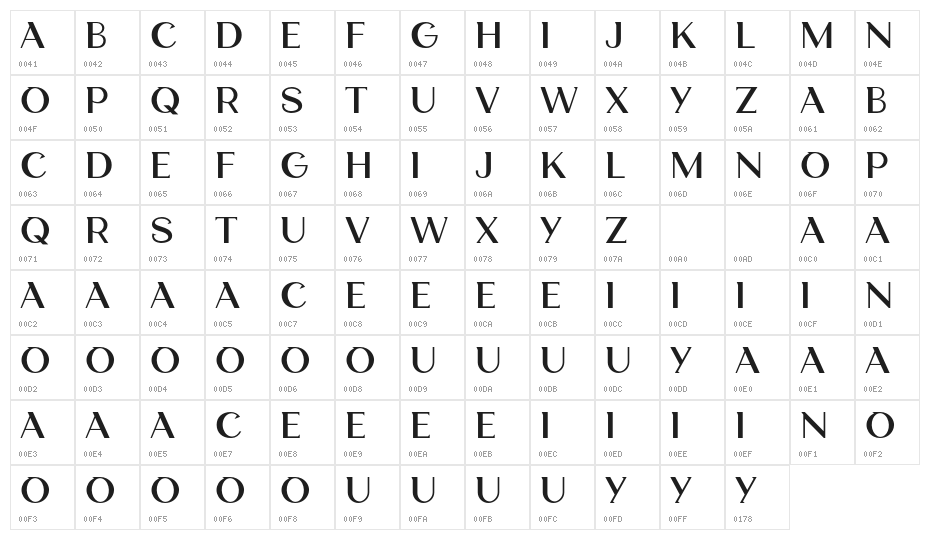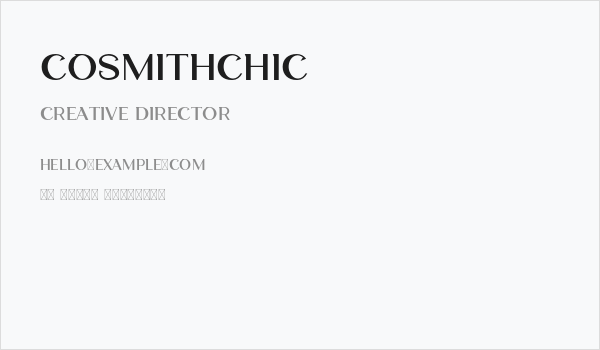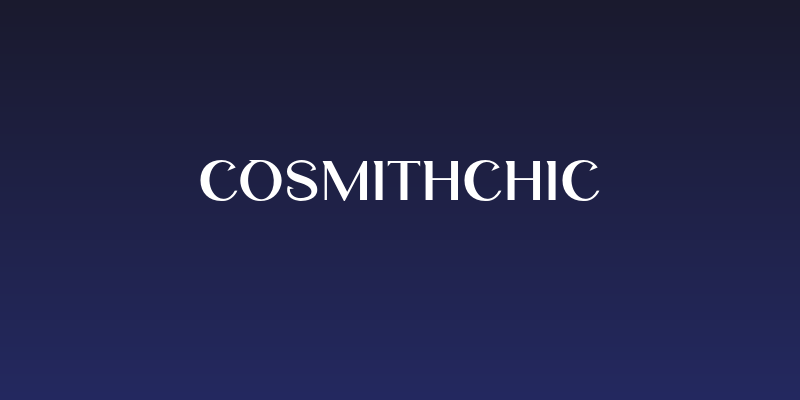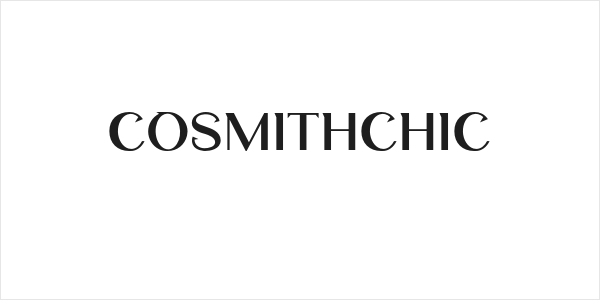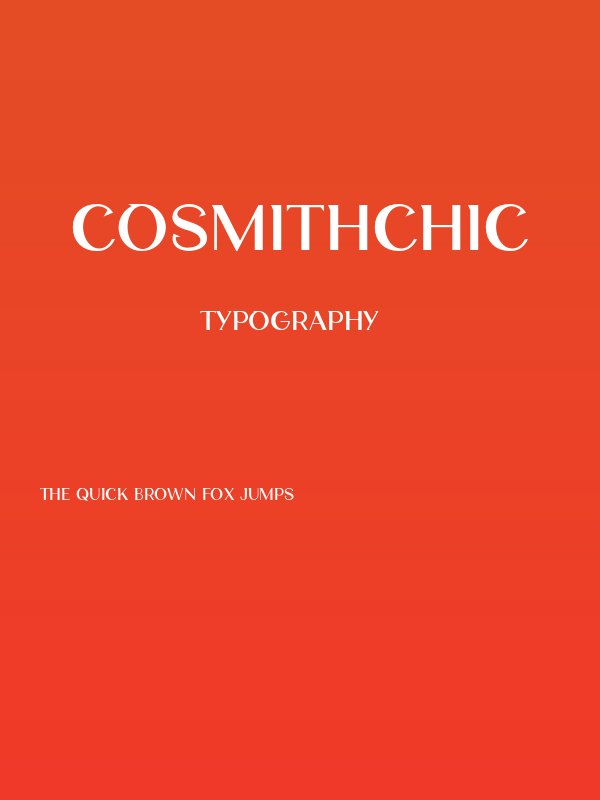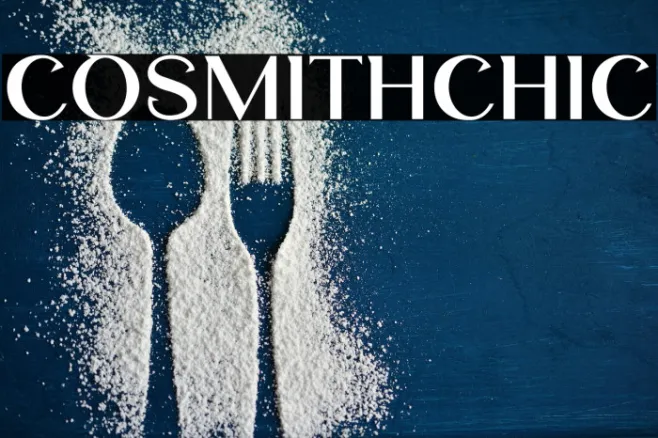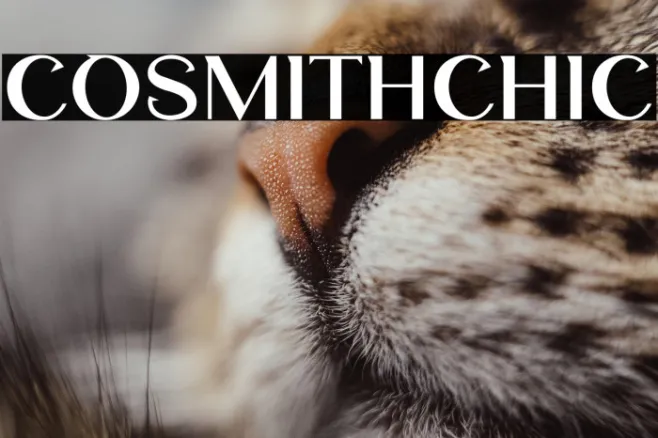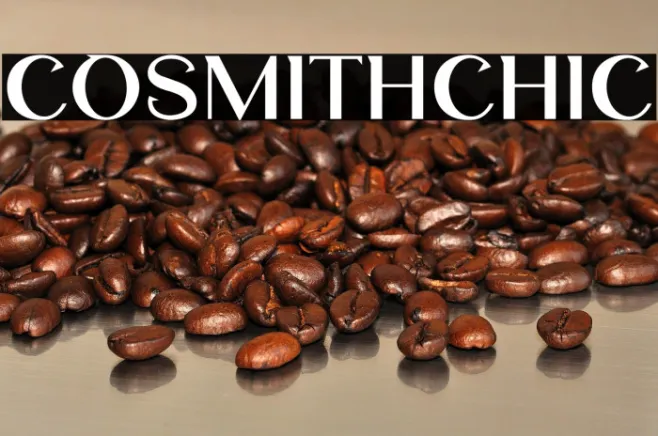
CosmithChic Font
CosmithChic Description
This font features a modern and elegant serif style with distinct, sharp edges and a sophisticated appearance. The uppercase letters are bold and commanding, while the lowercase letters maintain a refined and balanced look. The font's design is characterized by its high contrast between thick and thin strokes, giving it a dynamic and stylish feel. The overall structure is clean and precise, making it suitable for a variety of design applications. The spacing between characters is normal, ensuring readability and clarity in both large and small sizes.
| Proposed Projects | Ideal for luxury branding, editorial design, fashion magazines, and high-end product packaging. |